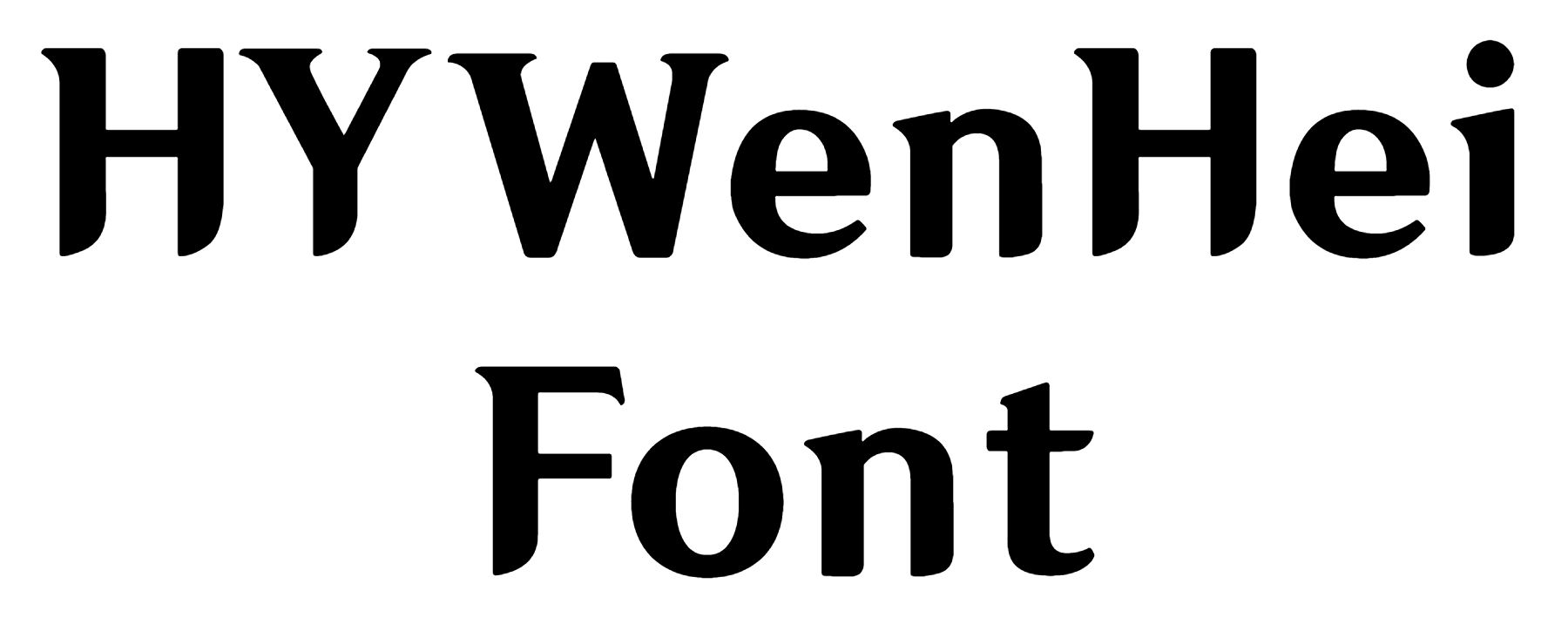
HYWenHei
What You Can Type With HYWenHei
You get every letter from A to Z in both cases and all the numbers from 0 to 9, which means HYWenHei can handle full sentences, dates and prices. Everyday marks like &, !, ? and @ are there too. Thanks to its accented letters, it also works for Spanish, French, German, Portuguese and Italian, not just English. On top of that, it includes Greek and Cyrillic characters.
Where HYWenHei Works Best
Designers usually reach for fonts like HYWenHei when they're making everyday text, websites and clean logos. Fonts like this are workhorses: use them for body text, captions and anything people need to read quickly.
Does HYWenHei support accented letters?
Yes. HYWenHei includes the accented letters needed for Spanish, French, German, Portuguese and Italian, so it works for more than just English.